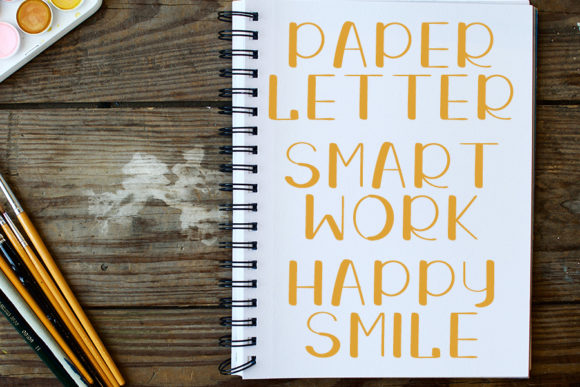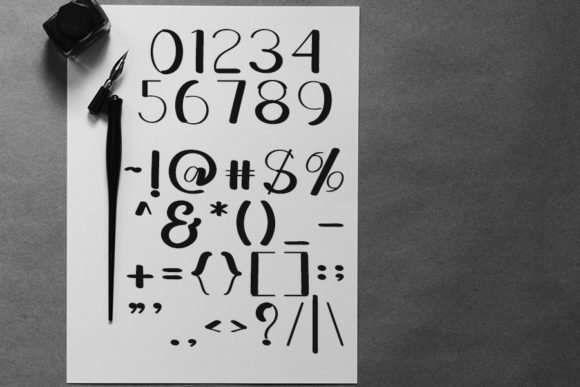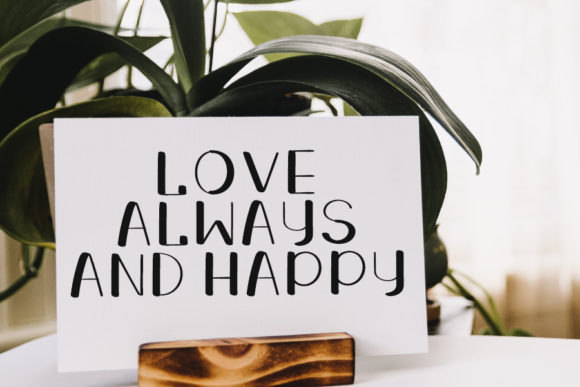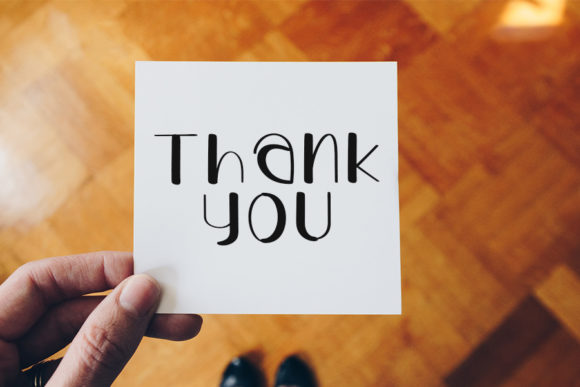
Introduction to Ressison Font
Ressison is a strong and round lettered sans serif font.
Add it to your most creative ideas and notice how it makes them come alive .
Key Features of Ressison Font
Why Choose Ressison Font?